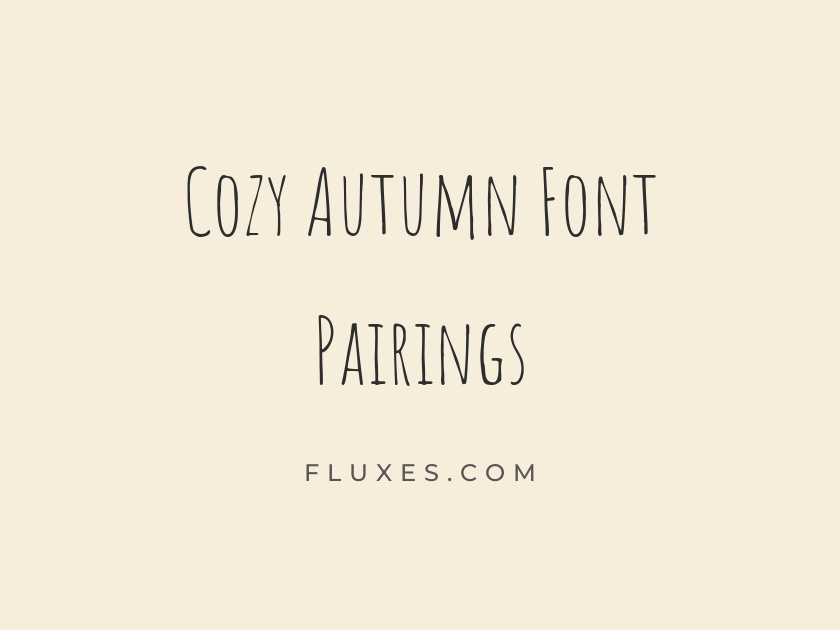
36 Cozy Autumn Font Pairings
Autumn pairings live or die on warmth: a heading font with some grain or hand-touch, set against a body font that reads easily by lamplight. The combinations below lean on that idea in different ways, from rustic script headlines over calm serifs to sturdy slab display faces grounded by humanist sans body text. All are free Google Fonts pairings you can drop straight into a blog, menu, or seasonal landing page.
Amatic SC + Lora
Amatic SC brings a hand-drawn, almost whittled quality to headlines, while Lora’s gentle curves and moderate contrast keep long paragraphs comfortable. The gap between a sketchy display and a settled text serif is exactly the contrast this season calls for.
Abril Fatface + PT Serif
Abril Fatface has the heavy, ink-saturated look of a vintage poster, and PT Serif’s sturdy, low-key letterforms let that drama breathe without competing for attention. Good for market signage or a bakery landing page.
Playfair Display + Source Serif 4
Both fonts share classic old-style proportions, so the pairing feels considered rather than accidental. Playfair Display supplies the flourish at large sizes; Source Serif 4 stays composed and readable underneath.
Alfa Slab One + Nunito Sans
Alfa Slab One is about as thick and grounded as a display face gets, which is why it needs a light, rounded partner like Nunito Sans to avoid feeling heavy on the page. This works well for rustic cabin rentals and outdoor brands.
Fraunces + Karla
Fraunces has a soft, buttery warmth built into its curves, almost like a font that was left out in the sun. Karla’s clean geometry keeps things from tipping into whimsy, so the pairing suits recipe sites and cozy home blogs equally well.
DM Serif Display + Mulish
DM Serif Display carries an editorial elegance that suits harvest dinner invitations, and Mulish is unobtrusive enough to handle menu descriptions without fighting for the eye. The x-heights sit comfortably together at any size.
Yeseva One + Vollkorn
Yeseva One has the curled, slightly antique look of an old bakery sign, and Vollkorn’s calm, book-like rhythm grounds it in something readable. It is a natural fit for storytelling blogs or a family recipe archive.
Lobster + Quattrocento
Lobster’s looping script energy needs a body font with real backbone, and Quattrocento’s classical sturdiness provides exactly that. The pairing reads friendly at large sizes and stays legible in paragraph form.
Pacifico + Cabin
Pacifico’s casual, brush-like curves feel handwritten in the best way, while Cabin’s rounded terminals echo that friendliness without becoming decorative themselves. Farmhouse kitchens, market stalls, and craft shops all suit this combination.
Caveat + Merriweather
Think of Caveat as a note scrawled on a chalkboard menu and Merriweather as the printed page beneath it. The handwritten heading draws the eye in, then Merriweather’s generous letterforms carry the reading.
Sacramento + Alice
Sacramento’s delicate, single-stroke script feels almost like fountain-pen handwriting, so it pairs best with something equally gentle. Alice has a soft, slightly old-fashioned charm that matches without overshadowing the script above it.
Rye + Bitter
Rye has a western, hand-carved feel borrowed from old grain sacks and general store signage, and Bitter’s slab-serif sturdiness feels like it grew up in the same barn. This pairing suits farm-to-table branding and rural event flyers.
Bevan + Noto Serif
Bevan’s chunky, poster-like slab serifs carry the nostalgia of old advertisements, and Noto Serif’s neutral, well-behaved letterforms keep body copy from competing with that character. A dependable choice for seasonal market copy.
Keep body fonts calm. A cozy headline needs a settled, legible text face beneath it so the page still reads easily in long form.
Test pairings at the sizes you will actually use. A script that looks charming at 60 pixels can turn illegible at 16, so always preview heading and body together before committing to a Google Fonts pairing.